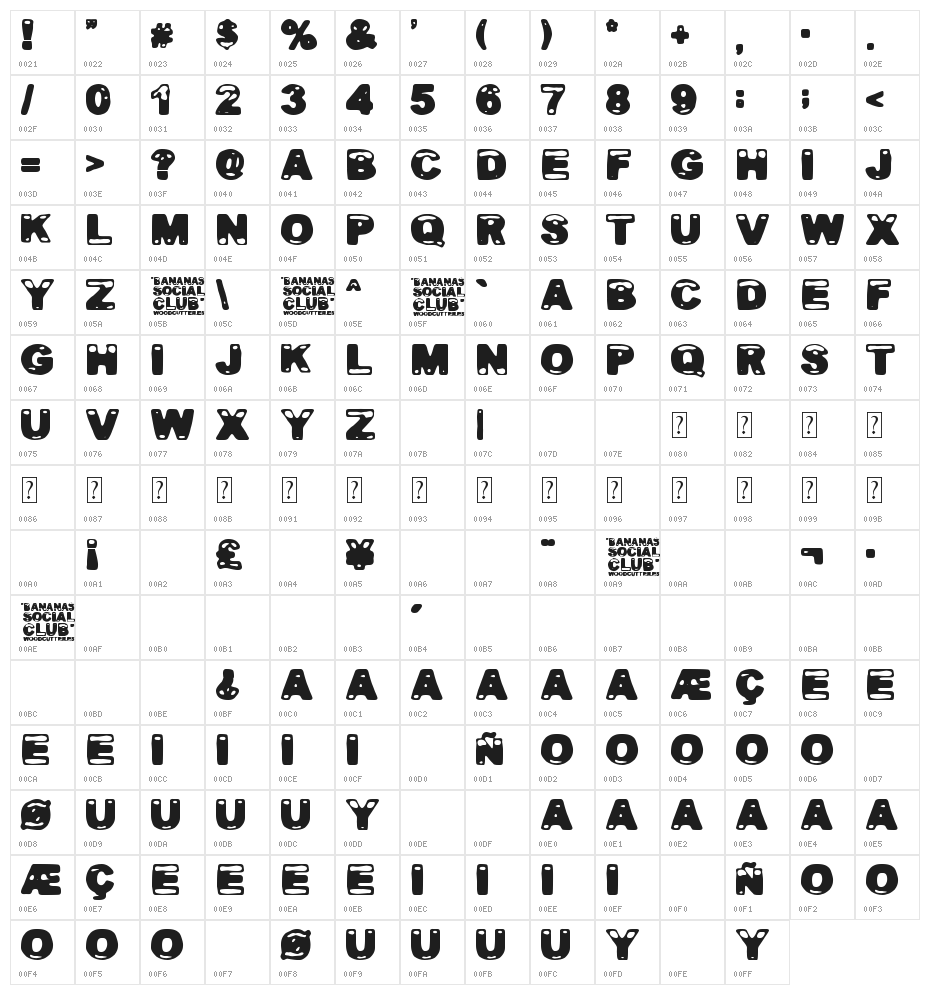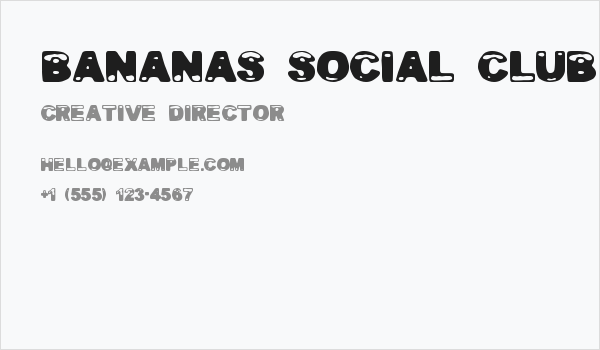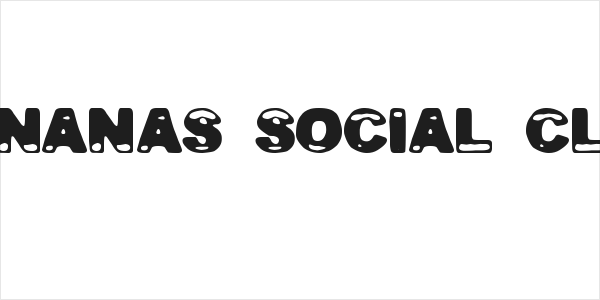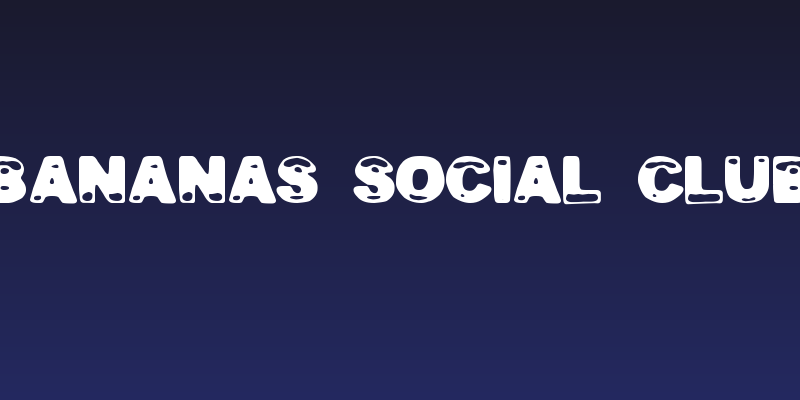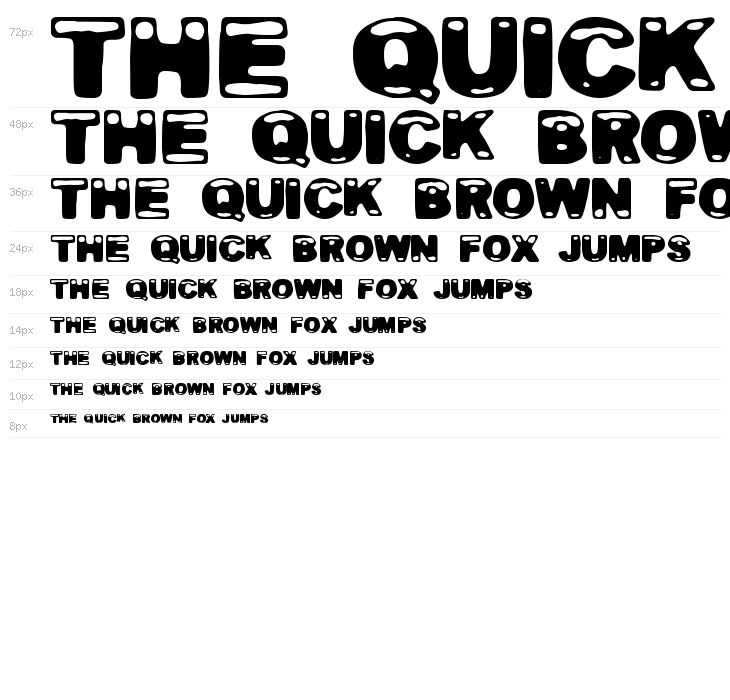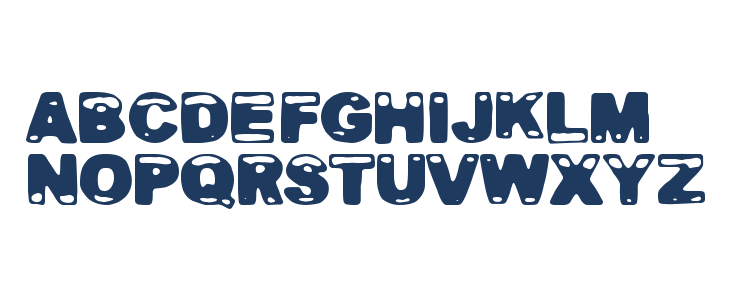
Bananas Social Club Font
Bananas Social Club Description
This playful and bold font features a unique, bubbly design with thick, rounded strokes and irregular, organic shapes. Each character is filled with whimsical cutouts that add a sense of fun and creativity. The font's heavy weight and distinctive style make it stand out, perfect for capturing attention. Its playful nature is ideal for projects that require a lively and energetic feel. The characters are well-spaced, ensuring readability despite their boldness. This font is perfect for creating a friendly and approachable atmosphere in any design.